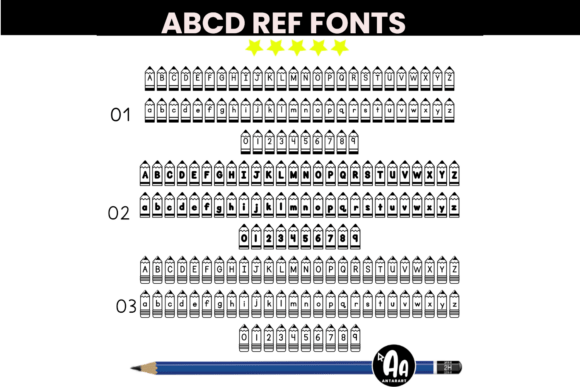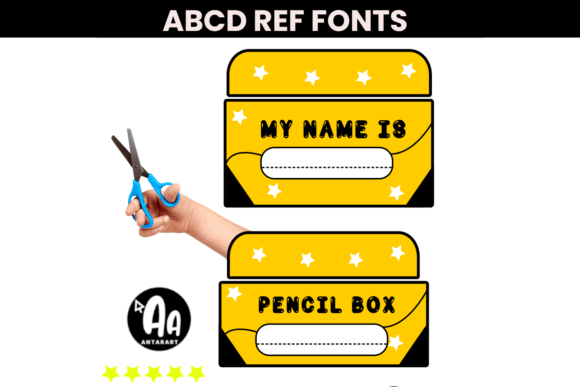
Introduction to Pencil Shape Box Template Font
Bring creativity to your classroom and craft projects with this 3-style decorative pencil font set.
This resource includes three unique pencil-shaped alphabet styles perfect for classroom decor, student name tags, pencil box labels, bulletin boards, posters, and kids’ projects Each font includes uppercase and Lowercase Alphabet A–Z, Numbers 0–9.
Key Features of Pencil Shape Box Template Font
Why Choose Pencil Shape Box Template Font?